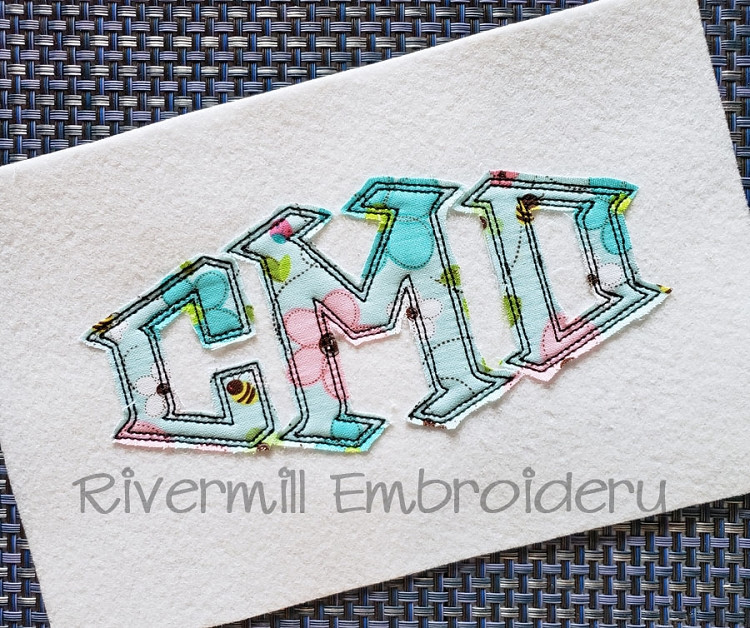
Raggy Short Point Monogram Applique Machine Embroidery Alphabet Font
You get 4 sizes of upper case letters for the Right, Center, and Left side that form a diamond shape when put together. The sizes are based off of the center letter - 2", 3", 4", and 5".
Each letter has a double bean stitch outline at the edges.